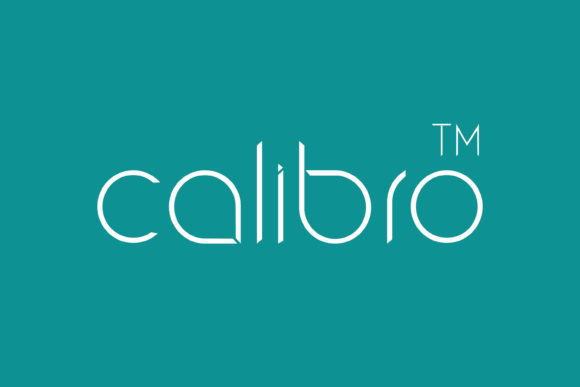
The Ultimate Guide to Calibro Font: Elevate Your Designs with This Minimal and Neat Display Font
I’ll never forget the time I was working on a branding project for a trendy new coffee shop. I had the logo concept nailed, but something was off. The font I was using just wasn’t giving me the vibe I wanted. It was too ornate, too bold, or just plain too much. I scoured the internet for the perfect font, and that’s when I stumbled upon Calibro. This minimal and neat display font has been a game-changer for me ever since.
What Makes Calibro Font So Special?
Calibro is a versatile font that can easily be matched to an incredibly large set of projects. Its clean lines and simple design make it perfect for adding a touch of sophistication to your creative ideas. Whether you’re a designer, crafter, or creative hobbyist, Calibro is sure to make your projects stand out.
An Honest Review of Calibro Font
- ✨ Clean and Minimal Design: Calibro’s simple design makes it perfect for projects where you want the content to shine.
- ✅ Highly Versatile: This font can be used for a wide range of projects, from branding and advertising to packaging and web design.
- 💡 Easy to Read: Calibro’s clear and concise design makes it easy to read, even at small sizes.
While Calibro is an amazing font, it’s not perfect. Here are a few things to keep in mind:
- 🤔 Limited Emphasis Options: Calibro doesn’t have a lot of built-in emphasis options, so you may need to get creative with styling.
- ⚠️ Not Suitable for Body Text: While Calibro is easy to read, it’s not designed for long-form body text. Stick to headings and titles for best results.
- Experiment with OpenType features like Stylistic Alternates to add some extra flair to your design.
The Backstory of Calibro Font
Calibro was designed by a team of typographers who wanted to create a font that was both clean and elegant. Inspired by modernist design principles, Calibro is the perfect blend of form and function. While the designer’s identity remains anonymous, their passion for typography shines through in every detail of the font.
Q: What is Calibro font best used for?
A: Calibro is best used for headings, titles, and short-form text. It’s perfect for branding, advertising, packaging, and web design.